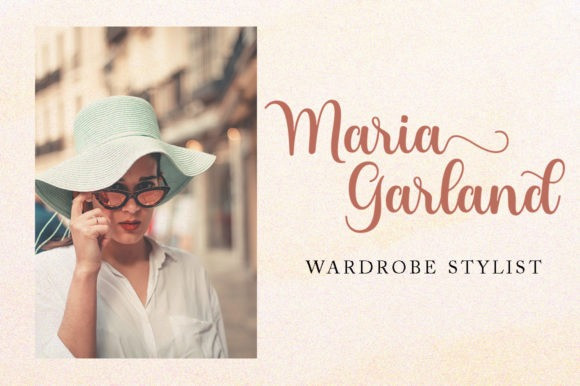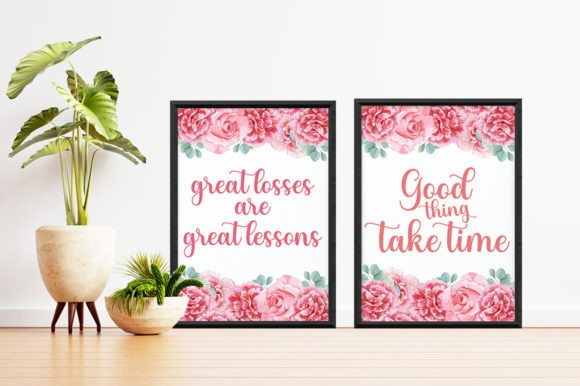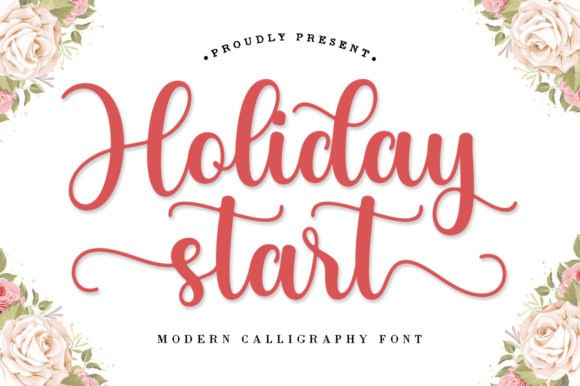
Holiday Start Font
Holiday Start Font is a spending and sweet calligraphy typeface with characters that dance along the baseline. It will add a stylish spark to any design project that you wish to create! This font is PUA encoded which means you can access all of the amazing glyphs and ligatures with ease!